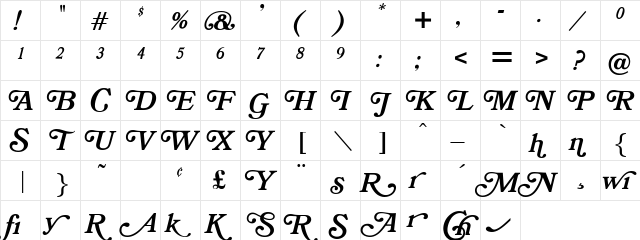
OPTIBookmanBoldItaSwashSup Regular Font Preview
Design Context for OPTIBookmanBoldItaSwashSup Typeface
OPTIBookmanBoldItaSwashSup flows with the natural rhythm of handwritten lettering, making it ideal for designs that call for warmth and personal expression. The heavy weight commands attention and anchors typographic hierarchies.
Font Pairing: Combine OPTIBookmanBoldItaSwashSup with a simple geometric sans for maximum contrast — the tension between flowing curves and clean structure is a classic typographic pairing.
Pro Tip: Pair OPTIBookmanBoldItaSwashSup with a clean sans-serif for supporting text. The contrast between fluid script and geometric structure creates an elegant typographic hierarchy.